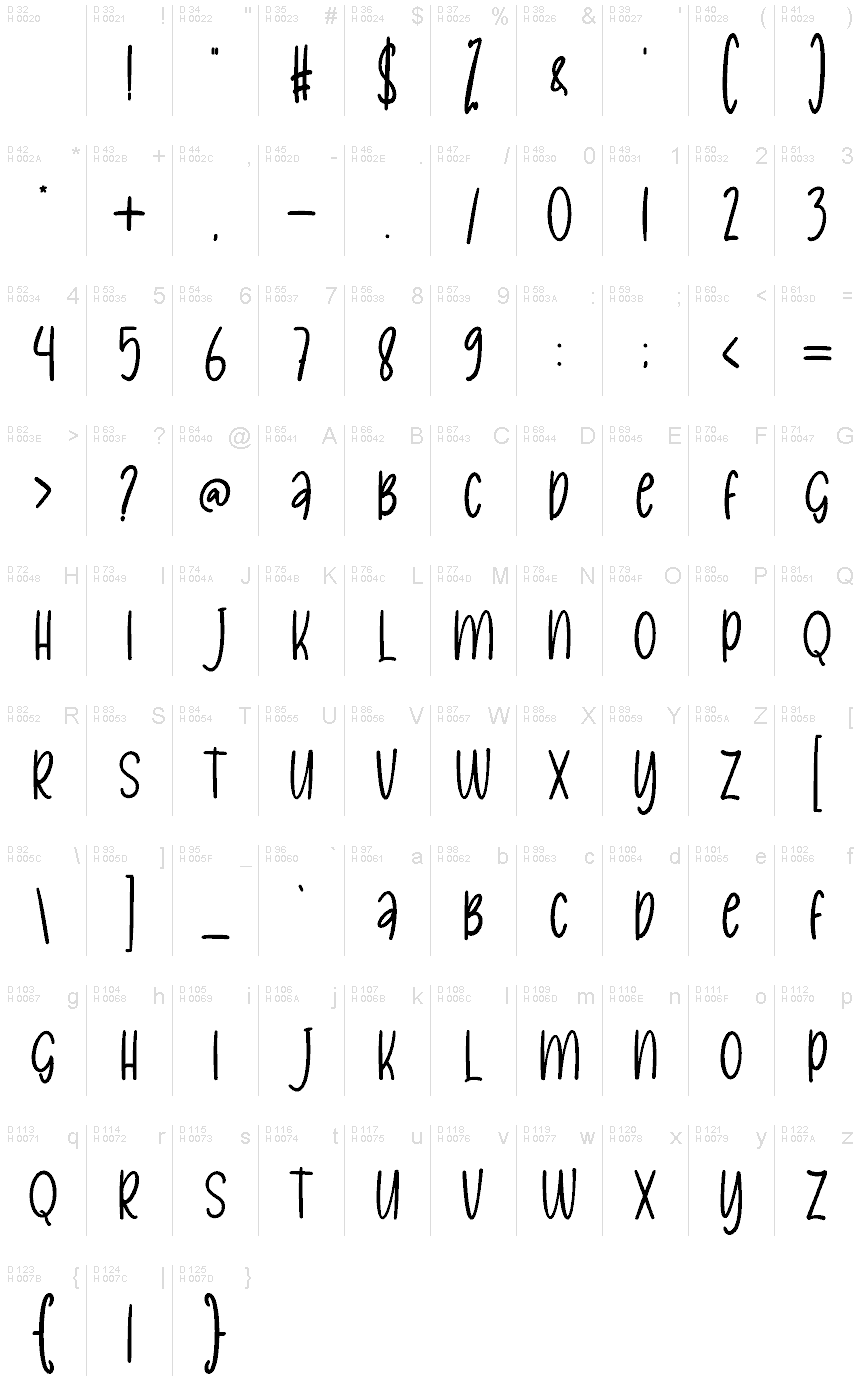
Sharen
Sharen font by Skiiller Studio is a condensed handwritten font with a hand-drawn appearance and casual vibe. Its letters showcase a modern aesthetic, friendly mood, and relaxed flow with an artistic feel that makes it thoroughly readable as well as stylish.